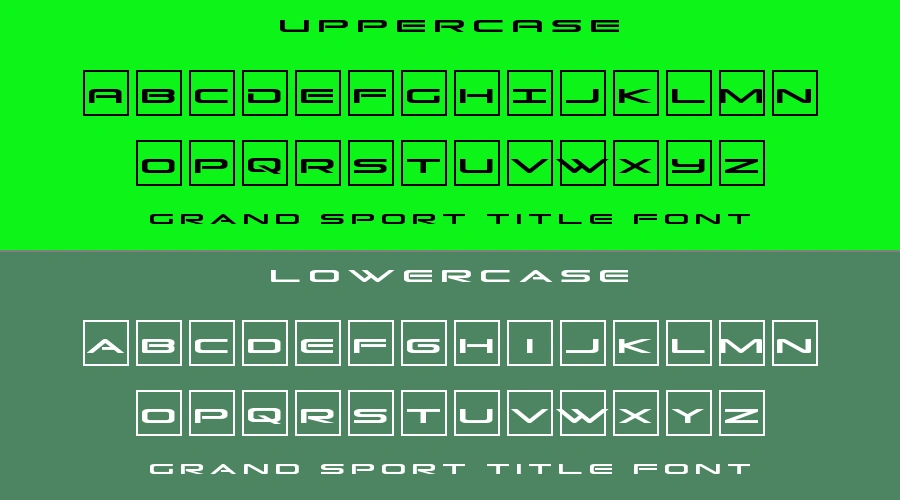
About Grand Sport Title Font
Grand Sport Title Font embodies typographic excellence through its masterful combination of pressure variations and technical precision. Created for wayfinding systems, this typeface delivers exceptional reliability and functional utility across all applications. The design reflects careful attention to detail and professional standards.
Advanced capabilities include distinctive concave curves and versatile contextual alternates, giving designers creative control. When used in certification marks, Grand Sport Title Font exhibits remarkable body text reading. The harmonious balance between ear formation and contemporary relevance sets this typeface apart.